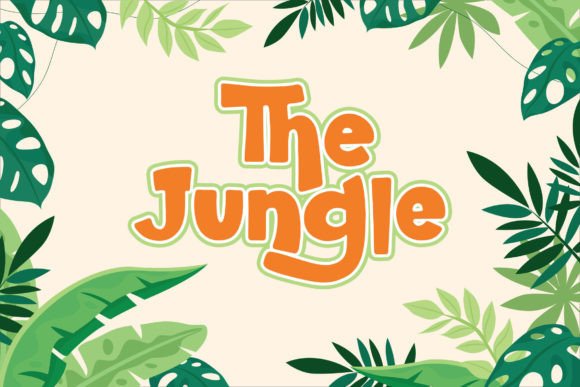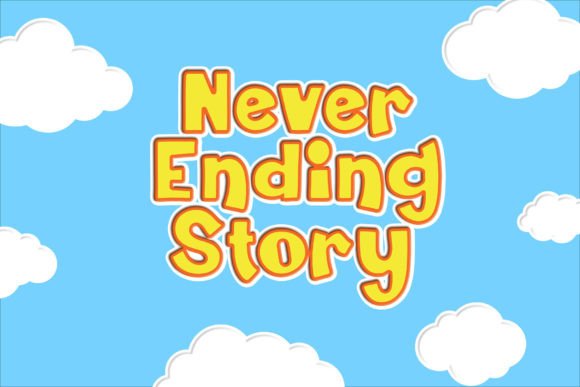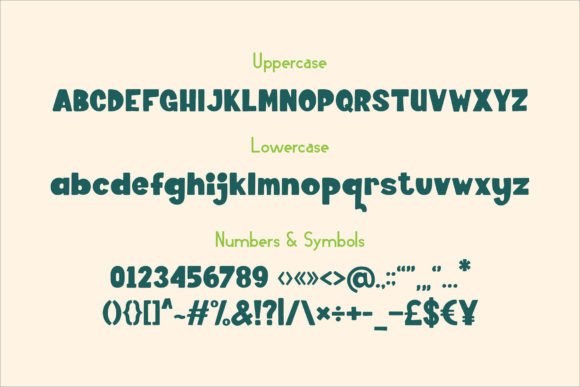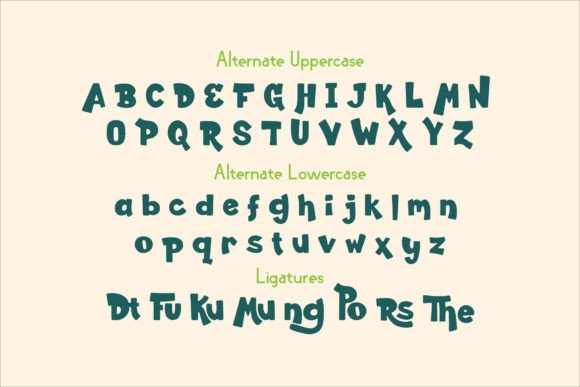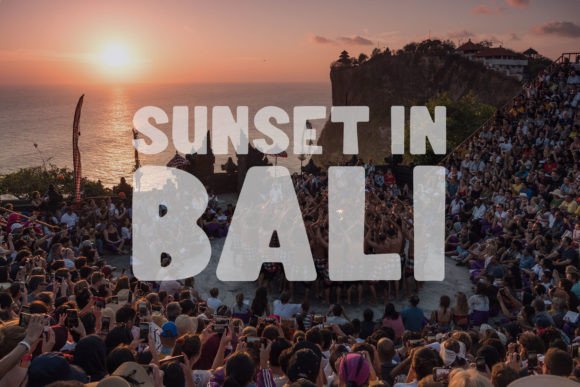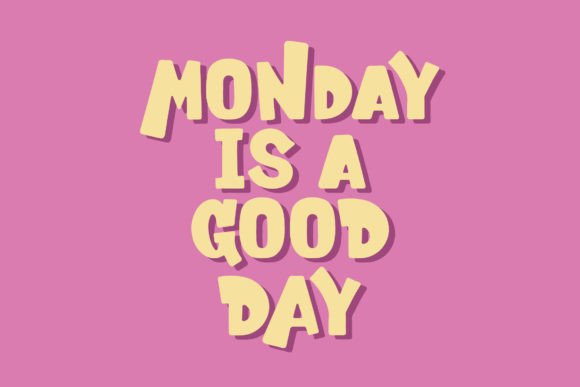
Introduction to Pongky Font
Introducing Pongky, a cool display font suitable for badges, logotypes, posters, taglines, decorative items, stickers, advertising, and much more.
Key Features of Pongky Font
Why Choose Pongky Font?
Pongky Font offers exceptional quality and versatility, making it a valuable addition to your design toolkit. Whether you’re creating for personal projects or commercial use, Pongky Font delivers professional results.